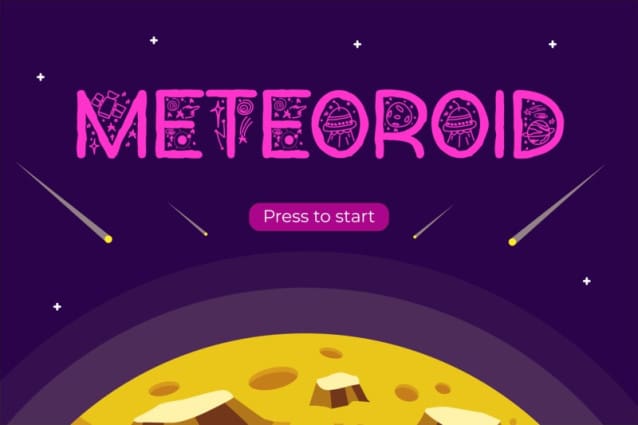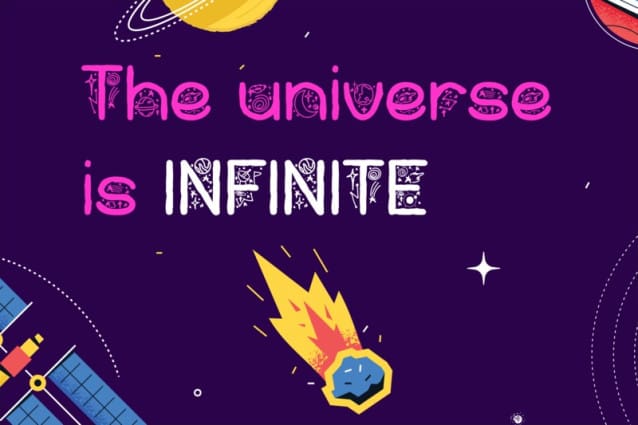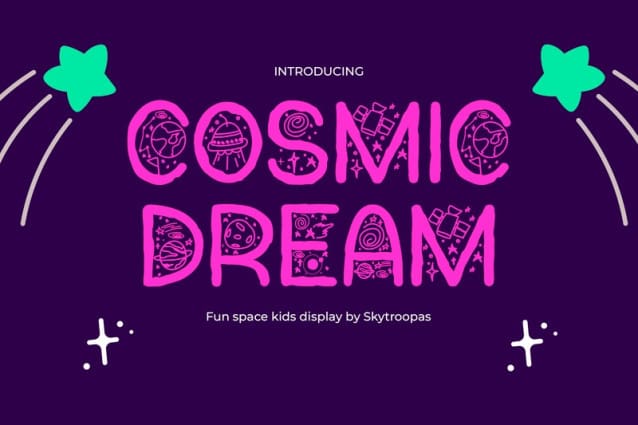
Cosmic Dream Font
Cosmic Dream Font, the ultimate fun space kids display font! Designed to ignite the imagination of children, this playful and captivating font is perfect for creating stellar school projects, game designs, children’s books, and more. With its whimsical letterforms inspired by the wonders of the universe, Cosmic Dream brings a touch of adventure and excitement to every design.
Whether you’re creating content for a website, YouTube channel, or gaming platform, this font is sure to capture the hearts of young space enthusiasts. Let Cosmic Dream transport you to a world of imagination and creativity, where dreams take flight among the stars!